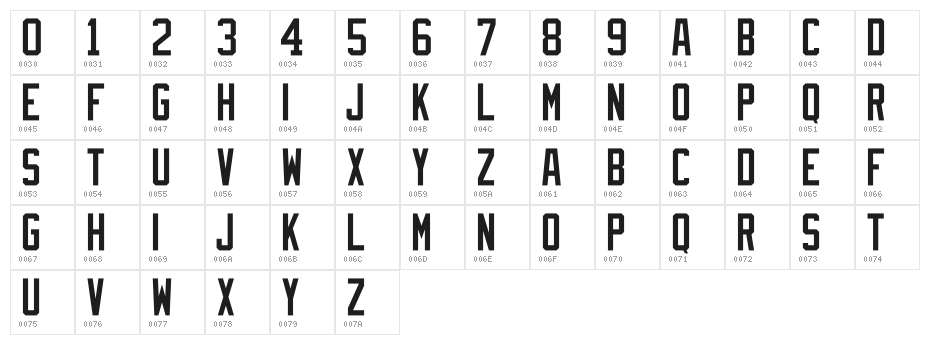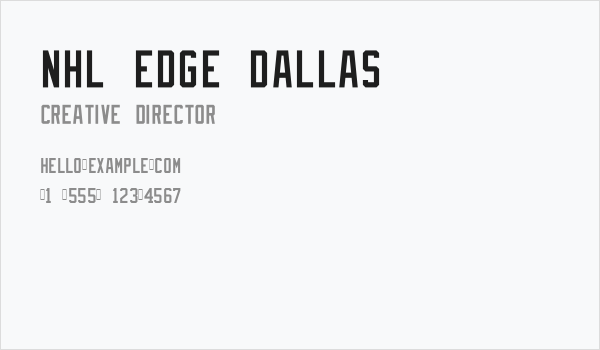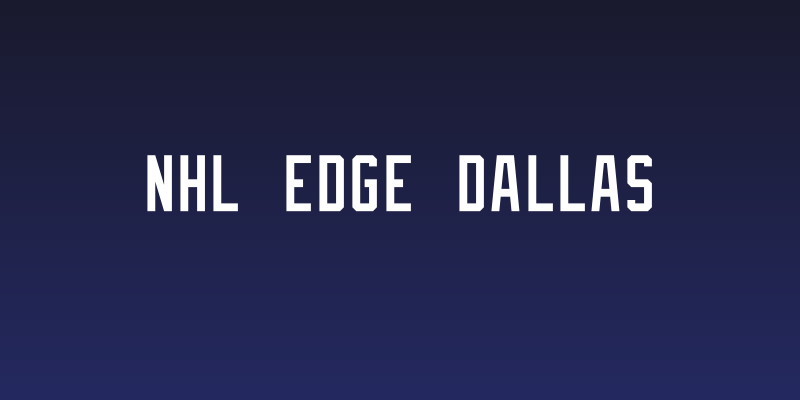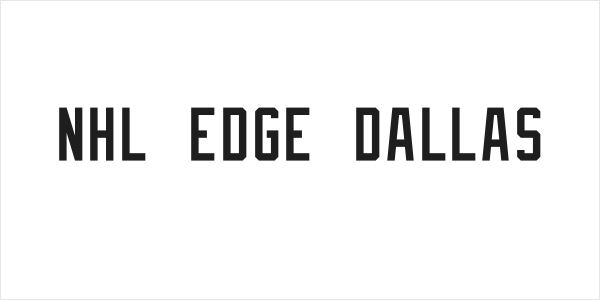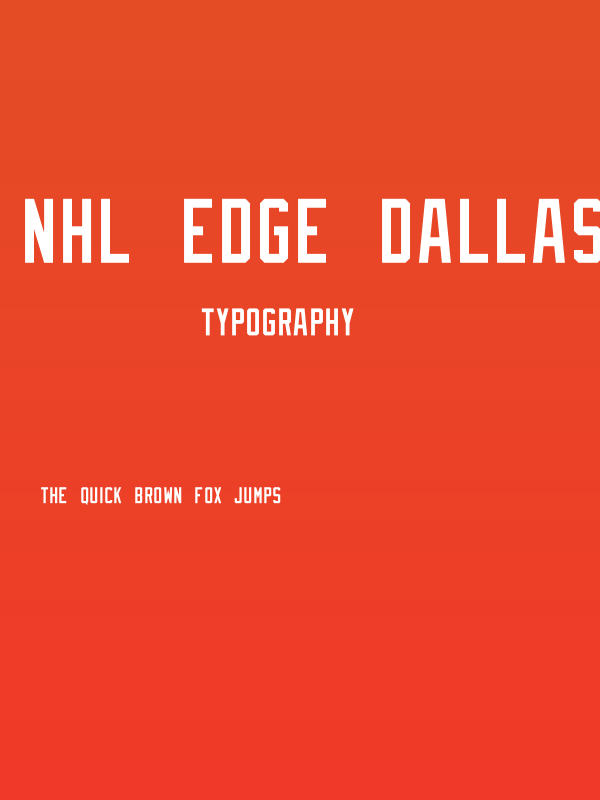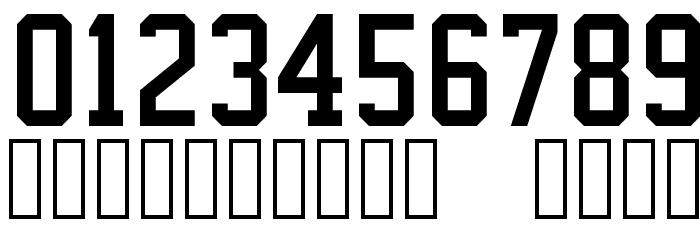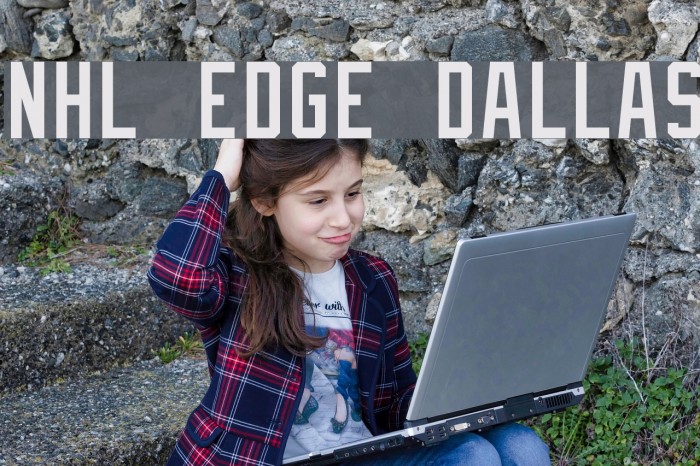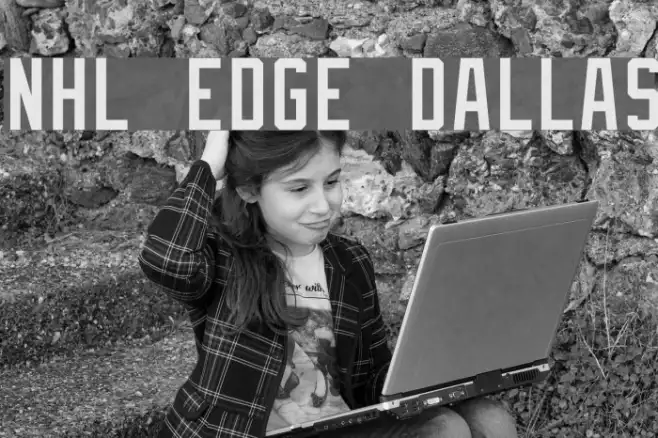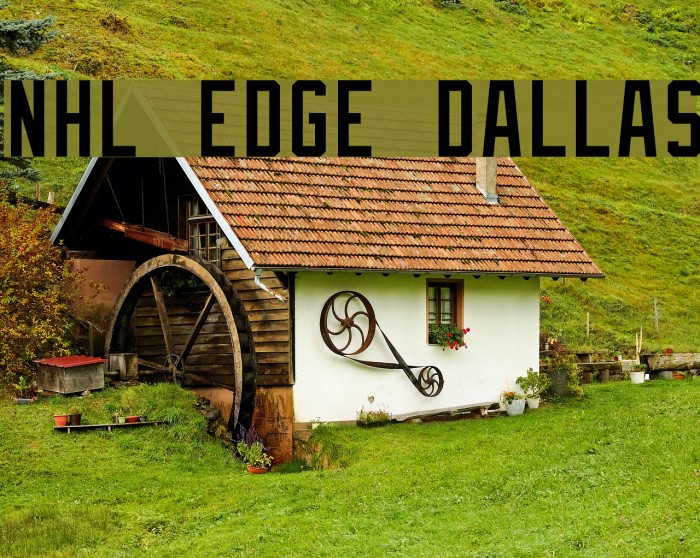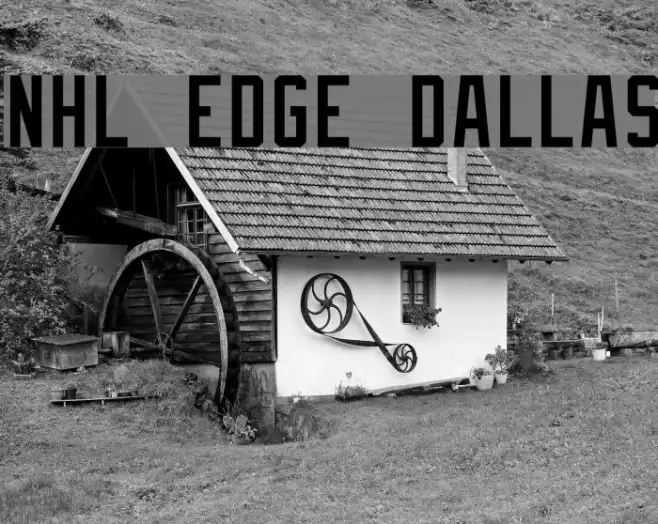
NHL Edge Dallas Font
NHL Edge Dallas Description
This font features a bold, geometric design with strong, angular lines and a modern aesthetic. The uppercase letters are uniform in height, creating a cohesive and structured appearance. The numerals are equally bold, maintaining the geometric style with consistent stroke widths. The overall design is clean and impactful, making it suitable for projects that require a strong visual presence. The absence of lowercase letters and special characters suggests a focus on simplicity and clarity.
| Proposed Projects | Ideal for sports branding, team logos, merchandise design, and promotional materials. |